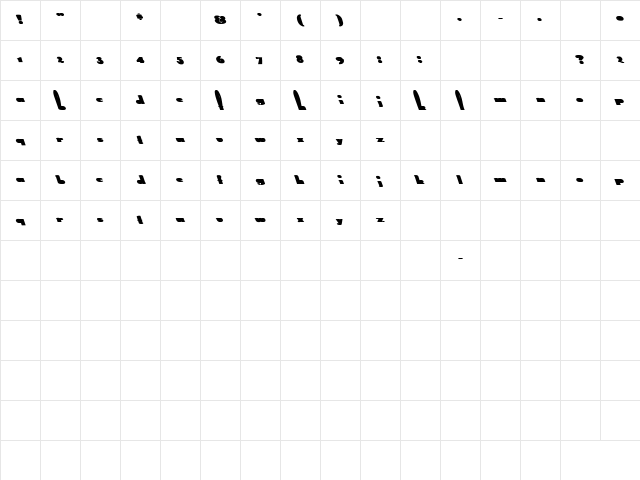
Rabbit Lefty Bold Free Font
Rabbit Lefty Bold
Design Context for Rabbit Lefty
Rabbit Lefty is a composed and adaptable typeface that performs quietly and consistently across a wide range of design contexts. Its bold stroke weight gives it real presence on the page.